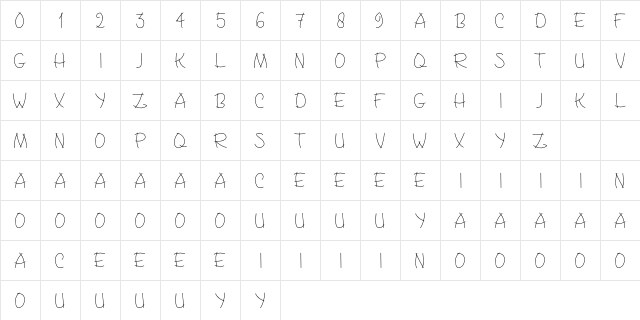
Mondas Regular
Design Context for Mondas Typeface
Mondas offers clean, dependable letterforms without strong stylistic allegiance, making it a practical choice for designers who need flexibility.